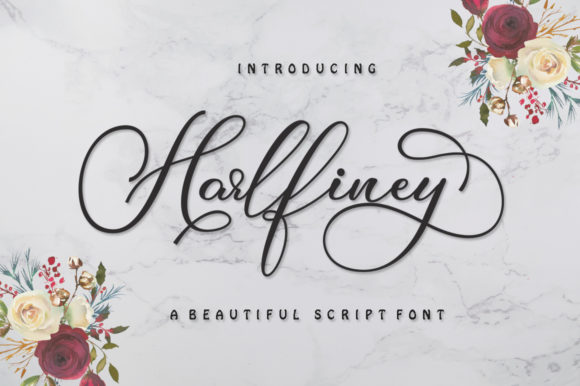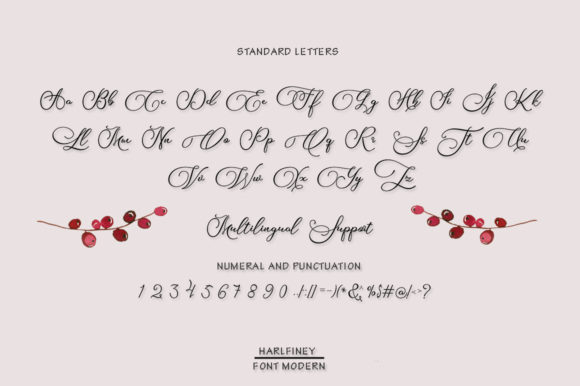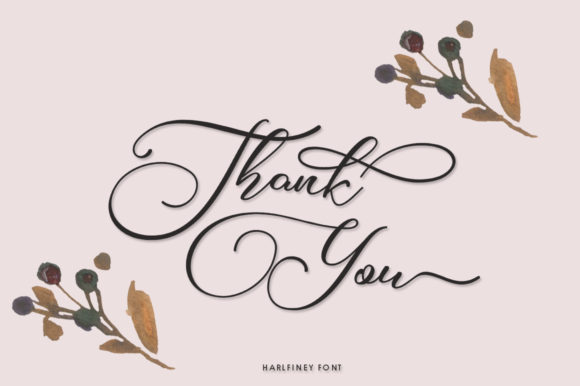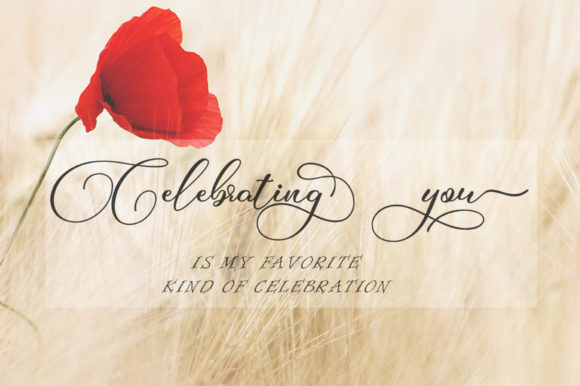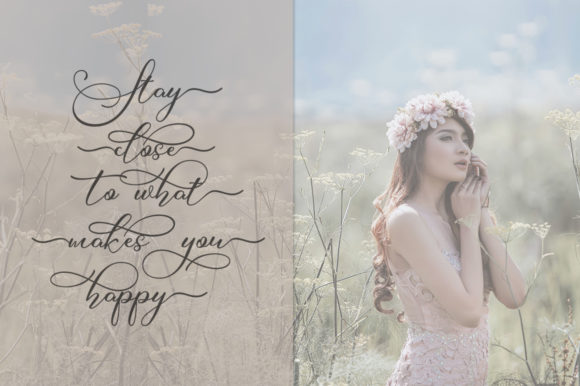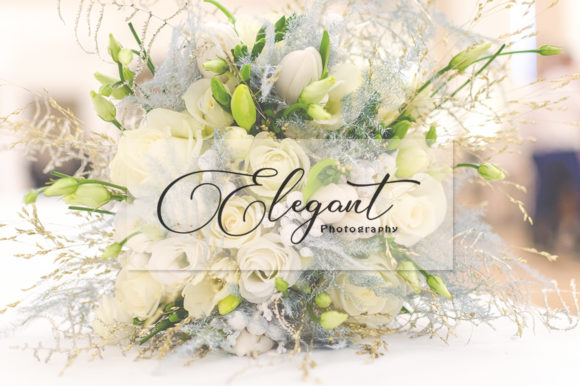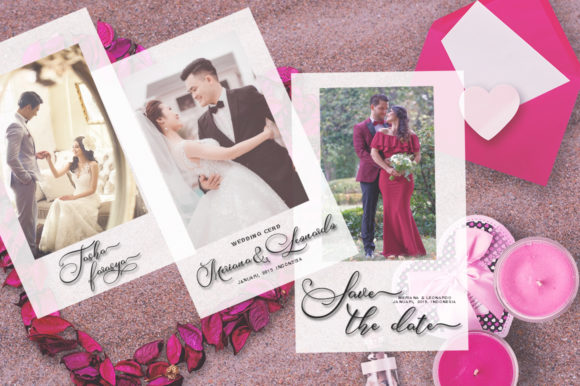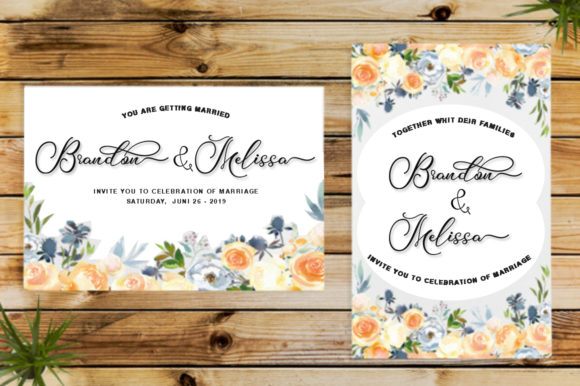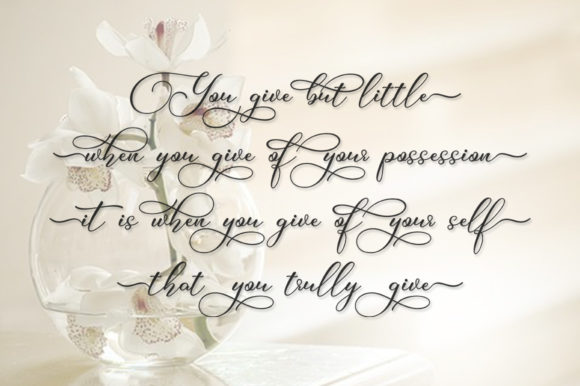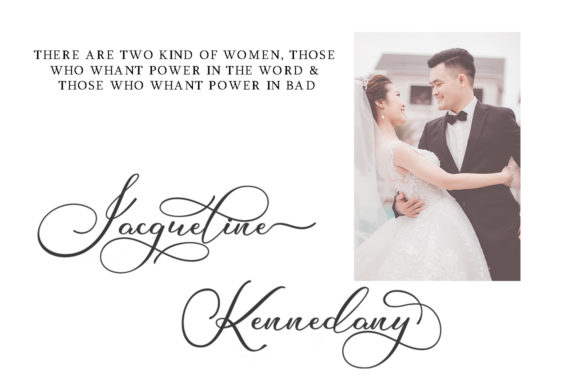
Harlfiney Font
About Harlfiney Font
Harlfiney is a modern calligraphy text. It includes elegant swashes which makes it perfect to give a luxurious feel to your designs.
It’s perfect for logos, product packaging, wedding invitations, branding, headlines, signage, labels, signatures, book covers, posters, quotes, and much more!